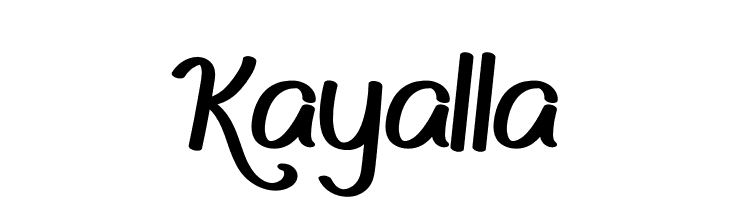
Geometrische Sans‑Serifs (z. B. Poppins, Familien im Gotham‑Stil) sind ein häufiger Griff für sauberes, skalierbares Branding. Für eine persönlichere Note bleiben Scripts und Handschrift‑Stile beliebt. Kombinieren Sie einen prägnanten Headline‑Font mit einer neutralen Brotschrift für Wiedererkennung und Harmonie.